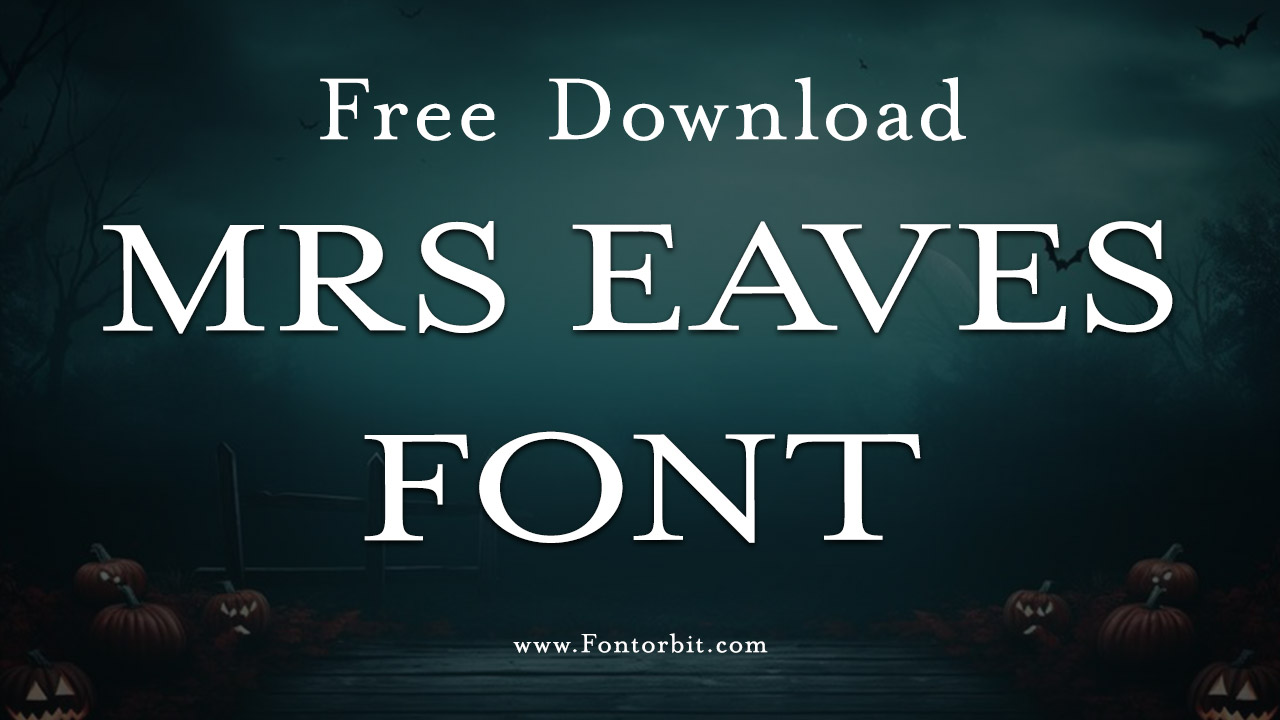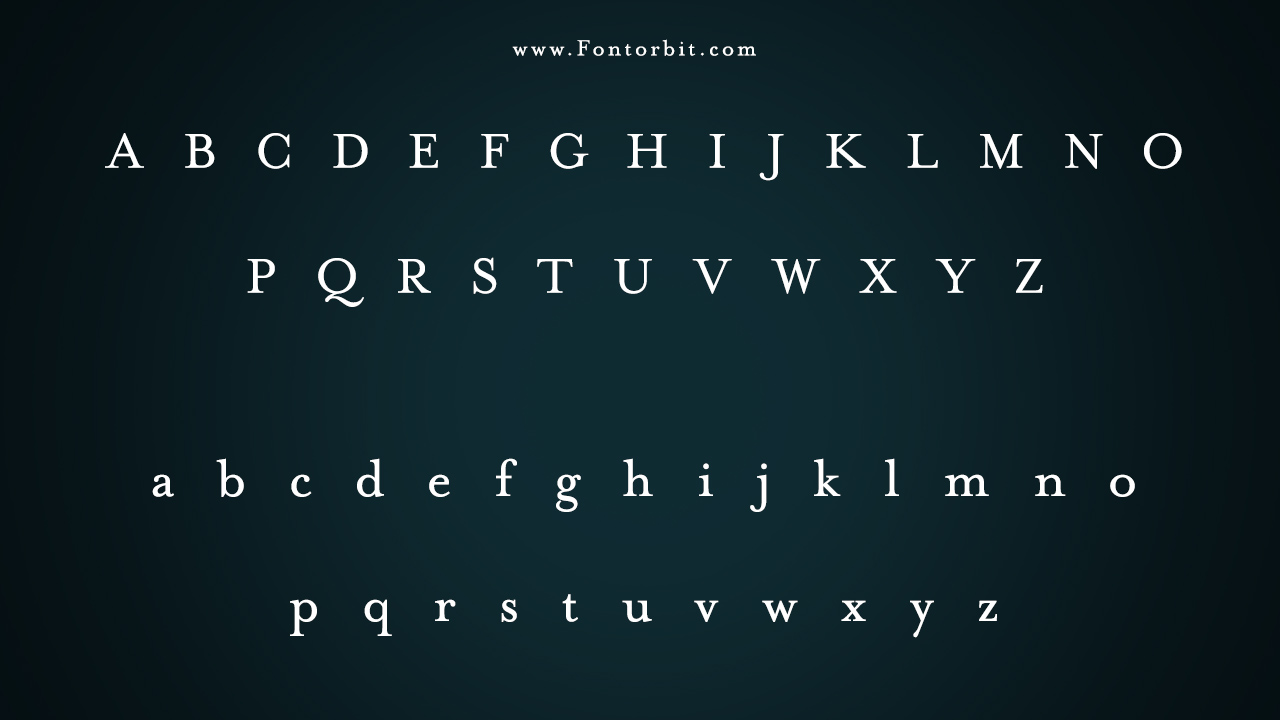
Mrs Eaves is a classic serif typeface designed by Zuzana Licko and first published by Emigre in 1996. It is a revival of the Baskerville typeface, designed to embody the elegance and readability of traditional serif fonts while incorporating modern design elements.
Mrs Eaves’s Family Includes
The Mrs Eaves family provides various styles suited for various typographic needs. It includes:
- Mrs Eaves OT Roman
- Mrs Eaves OT Italic
- Mrs Eaves OT Bold
- Mrs Eaves OT Bold Italic
- Mrs Eaves Roman Lining
- Mrs Eaves Roman Small Caps
- Mrs Eaves Roman All Small Caps
- Mrs Eaves Roman All Petite Caps
- Mrs Eaves Roman Petite Caps
Notable Uses Of Mrs Eaves
Mrs Eaves has been widely used in high-profile branding, editorial design, and sophisticated print materials. It is often seen in book covers, luxury packaging, and corporate identities where classic elegance is desired.
Mrs Eaves is ideal for applications where readability and sophistication are key. It’s perfect for:
- Books and magazines
- High-end branding and logos
- Invitations and formal documents
- Website headings and body text
Mrs Eaves remains a timeless choice for designers who want to evoke a sense of tradition and elegance. Its balanced design ensures it remains a popular and versatile option across various media.
1.What Is Mrs Eaves Based On?
It is a revival of the Baskerville typeface.
3.Does Mrs Eaves Come In Different Styles?
Yes, it includes Roman, Italic, Small Caps, Bold, and Bold Italic styles.
4.Can Mrs Eaves Be Used On The Web?
Yes, it can be used for both print and digital media.